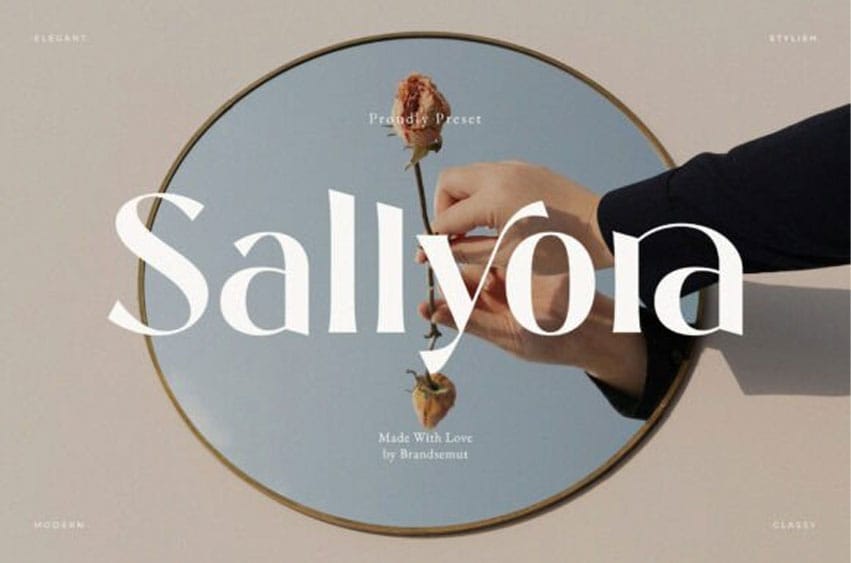
Sallyora Font is a stylish modern serif font crafted to bring elegance, warmth, and sophistication to your creative projects.
Featuring beautifully designed uppercase and lowercase letters, Sallyora combines classic serif tradition with contemporary flair — making it ideal for luxury branding, wedding invitations, beauty packaging, lifestyle editorials, and Instagram quotes.